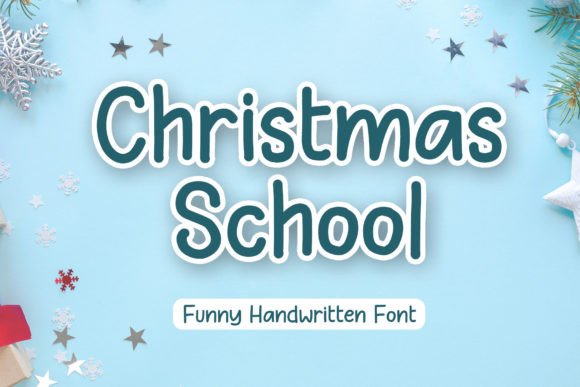
Journey into the realm of Christmas School Font, a display font of immense allure and captivating elegance. It's a typographic masterpiece crafted by the skilled hands at Letterafa Studio, designed to ignite your creativity and make your projects shine. With its modern flair and timeless appeal, this font will cast a spell on your audience and set your branding apart.
Christmas School Font is a versatile chameleon, adapting seamlessly to a myriad of creative endeavors. Whether you're weaving enchanting social media posts, designing fashion lines that exude style, or creating printed quotes that resonate with your audience, this font will be your trusted companion. Its versatility extends to backgrounds too, where it effortlessly blends with images, adding a touch of sophistication and charm.
This font is more than just a collection of characters; it's an experience, a journey into a world of limitless possibilities. Christmas School Font breathes life into your words, transforming them into visual symphonies that dance across the screen or leap off the page. Its elegant curves and sharp angles harmonize perfectly, creating a visual feast that captivates and enchants.
In a world saturated with monotony, Christmas School Font emerges as a beacon of originality, a breath of fresh air that will revitalize your creative spirit. It's the perfect choice for those who dare to stand out, who embrace individuality, and who seek to leave an indelible mark on the world.
Embrace the magic of Christmas School Font and watch as your projects blossom into works of art. This font is more than just a tool; it's an extension of your creativity, a canvas upon which you can paint your dreams and aspirations.